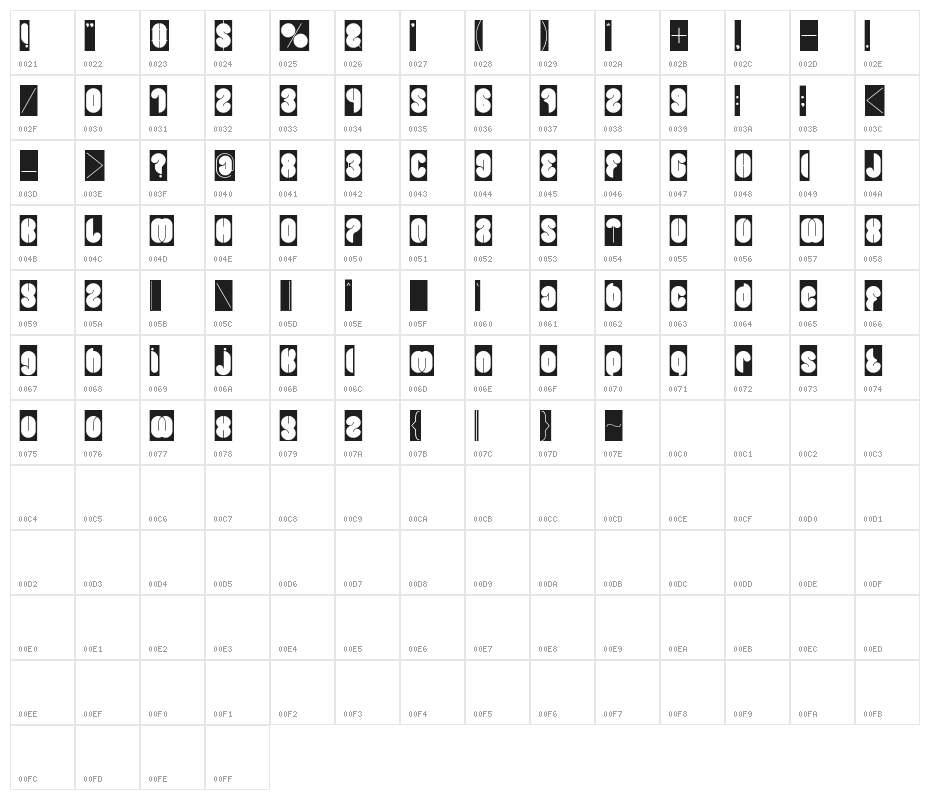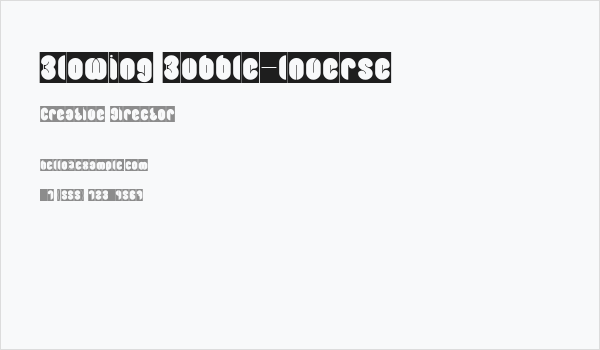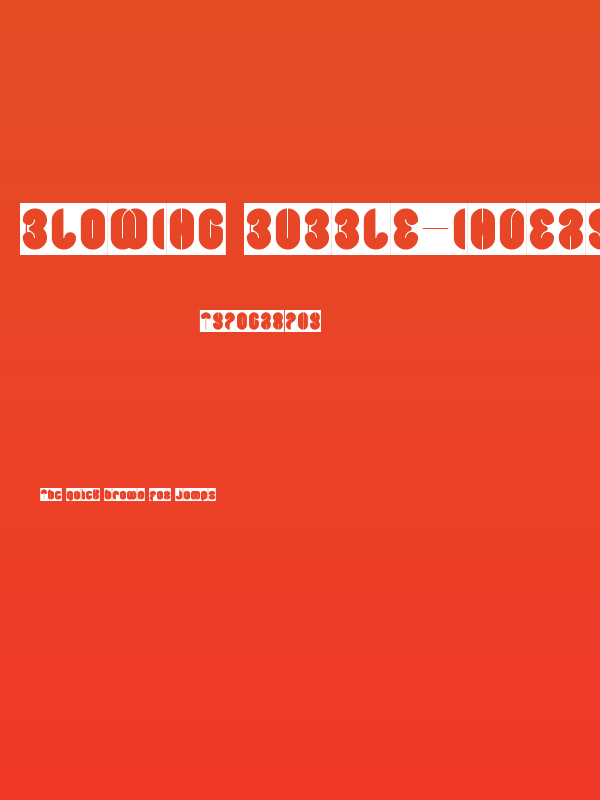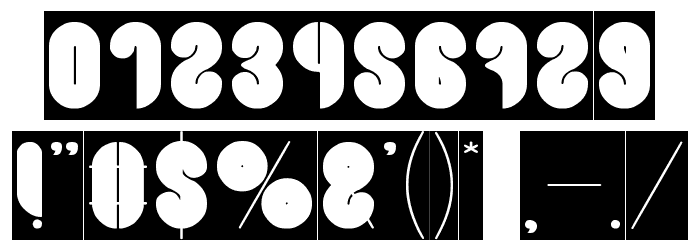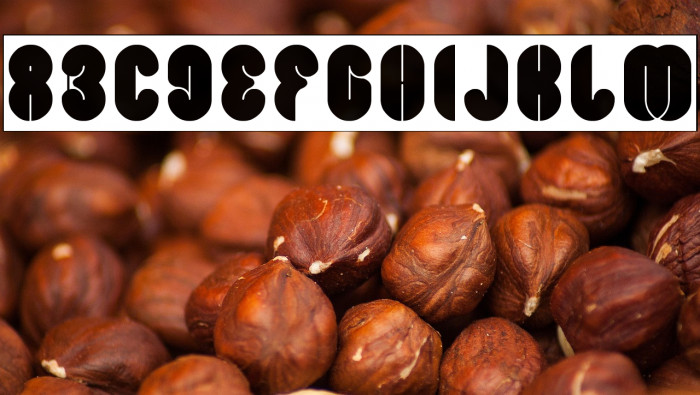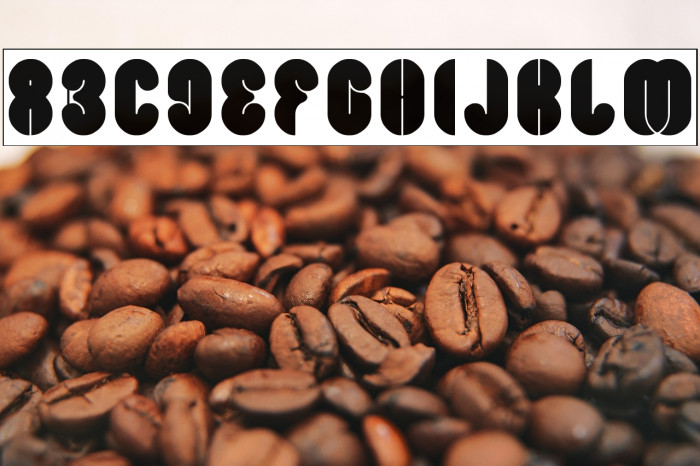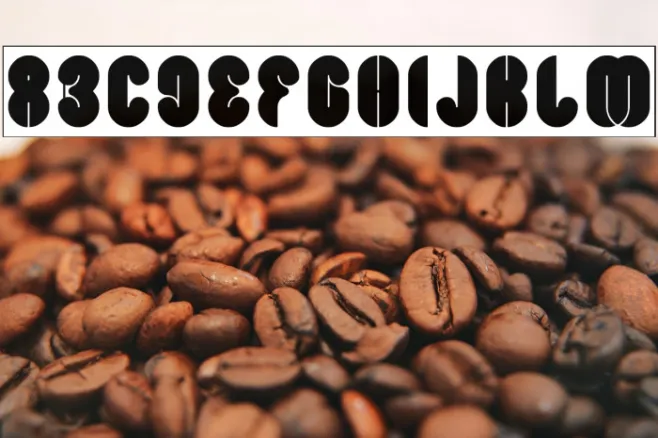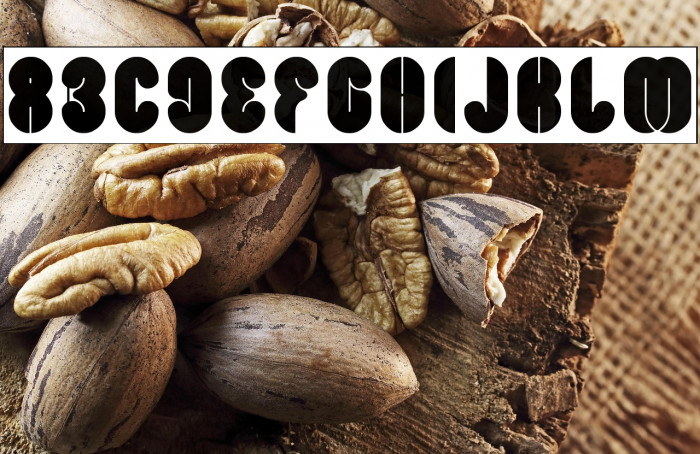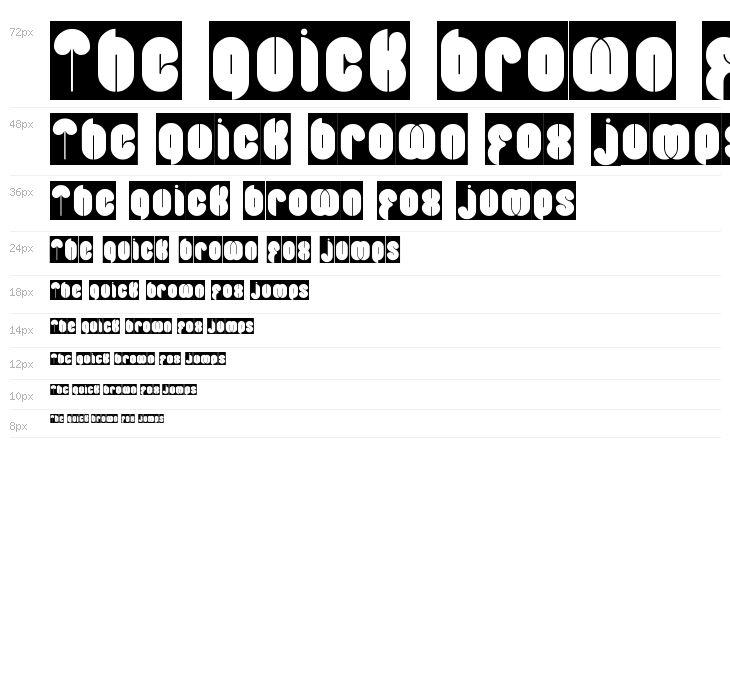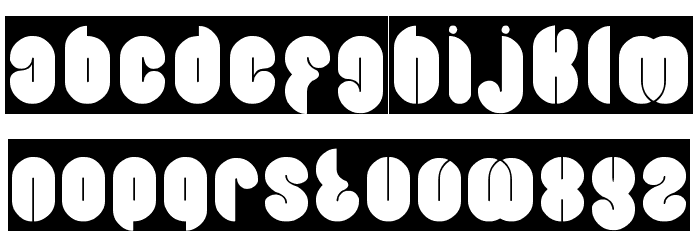
Blowing Bubble-Inverse Font
Blowing Bubble-Inverse Description
This font features a bold and playful design with rounded, bubble-like characters. Each letter and number is crafted with a unique, inflated appearance that gives a sense of fun and whimsy. The characters are evenly spaced, with a consistent thickness throughout, creating a harmonious and balanced look. The font's style is reminiscent of retro or vintage designs, yet it maintains a modern appeal. Its distinctiveness lies in the exaggerated curves and the way each character seems to be filled with air, making it ideal for eye-catching displays.
| Overall Style | Playful, Retro, Modern |
| Proposed Projects | Perfect for children's books, playful branding, party invitations, and creative posters. |